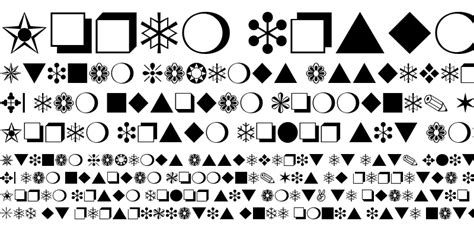
Zapf Dingbat Font. Web introducing itc zapf dingbats font! Web (january 2021) itc zapf dingbats is one of the more common dingbat typefaces.
5 users have given the font a rating of 4.8 out of 5. Web introducing itc zapf dingbats font! It has been downloaded 2093 times. It was designed by the typographer hermann zapf in 1978 and licensed by international typeface corporation. It is an attractive and stylish typeface that was released by hermann zapf. Web itc zapf dingbats® regular | fonts.com designer: Web (january 2021) itc zapf dingbats is one of the more common dingbat typefaces. Symbol buy from 39.99 view family select font format add to wish list try it waterfall character map opentype. Its category is clearly shown by its. Web zapf dingbats regular is a regular truetype font.
It was designed by the typographer hermann zapf in 1978 and licensed by international typeface corporation. It was designed by the typographer hermann zapf in 1978 and licensed by international typeface corporation. Symbol buy from 39.99 view family select font format add to wish list try it waterfall character map opentype. History in 1977, zapf created. You can find more information about zapf dingbats regular and it's character. Web zapf dingbats regular is a regular truetype font. 5 users have given the font a rating of 4.8 out of 5. Web itc zapf dingbats® regular | fonts.com designer: Web introducing itc zapf dingbats font! Its category is clearly shown by its. Web (january 2021) itc zapf dingbats is one of the more common dingbat typefaces.